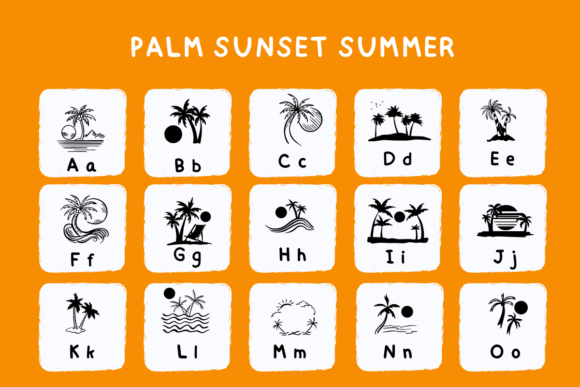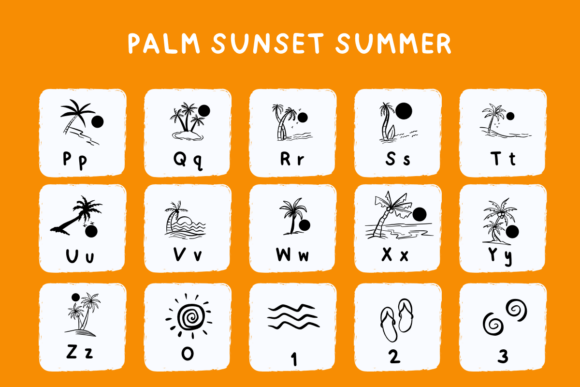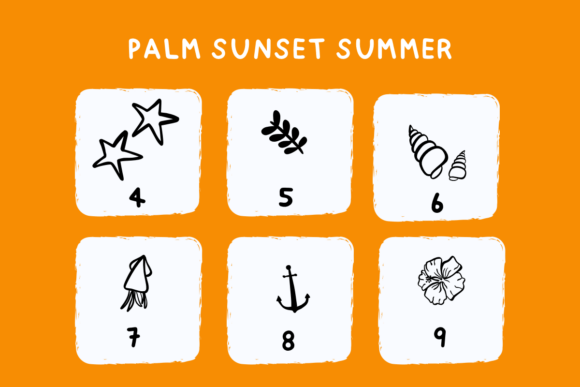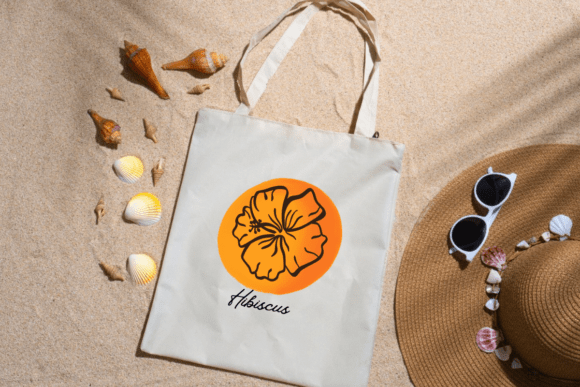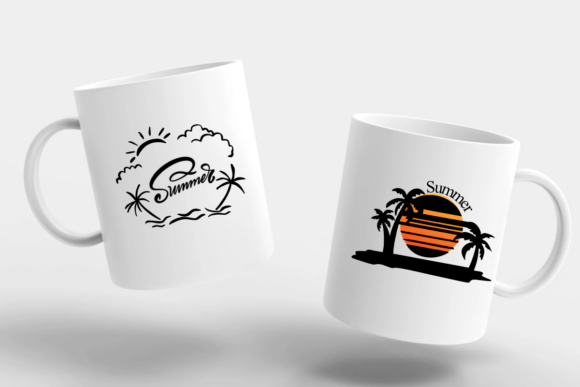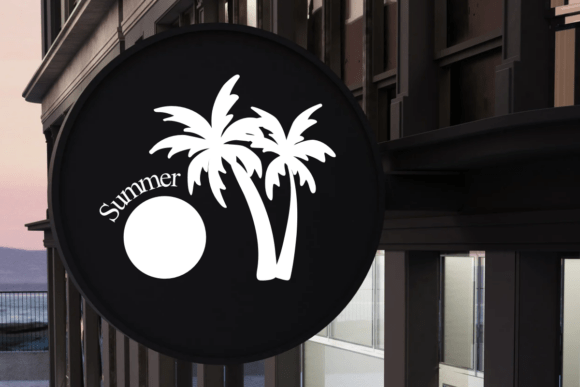
Introduction to Palm Sunset Summer Font
Unleash your creativity with Palm Sunset Summer, an artistic dingbats font designed to inspire.
Perfect for infusing a playful touch to your scribbled notes or giving an imaginative flare to your greeting cards, Palm Sunset Summer goes beyond the ordinary With its versatility, it can also add a unique charm to a wide range of designs from eye-catching banners and compelling content to stylish mugs, bespoke cards, trendy shirts and elegant stationery.
Key Features of Palm Sunset Summer Font
Why Choose Palm Sunset Summer Font?